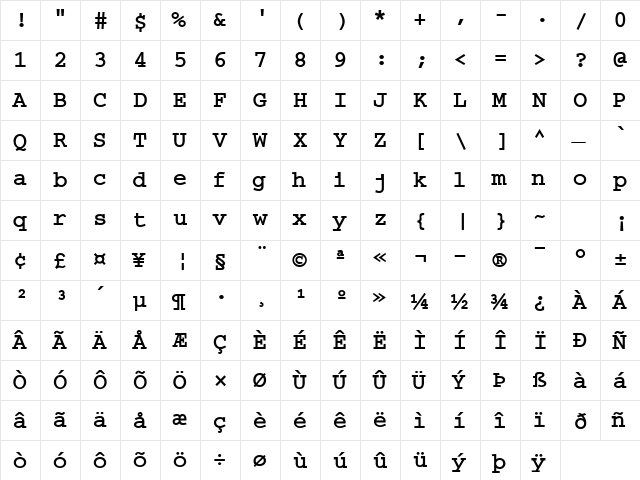
KerusaSSK Bold
Design Context for KerusaSSK Typeface
KerusaSSK takes a measured approach to typography — its balanced proportions and neutral character make it a reliable workhorse for both digital and print work. The heavy weight commands attention and anchors typographic hierarchies.